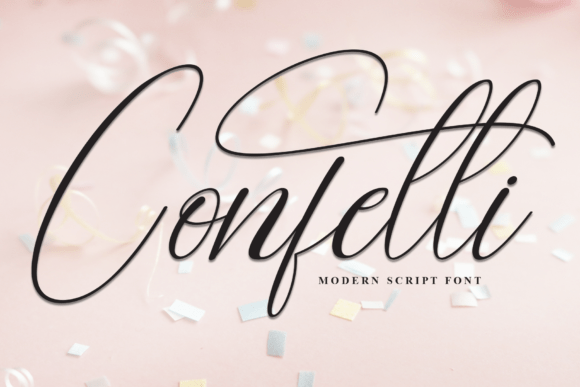
Introducing Confetti Font: Elevate Your Designs with Elegance and Modern Flair
In the world of typography, few fonts manage to strike a balance between elegance and modernity. However, Confetti Font achieves this delicate balance with grace. Confetti is a stylish handwritten script font that combines the sophistication of traditional calligraphy with the fresh appeal of contemporary design. Its flowing strokes and organic curves bring a sense of warmth and refinement to any project, making it an ideal choice for designers looking to add a personal touch to their work.
Key Features of Confetti Font
- Handwritten Script Style: Confetti Font boasts a beautiful, handwritten script style that adds a personal and refined touch to any design.
- Elegant and Modern: The font seamlessly blends traditional elegance with modern flair, making it versatile for various design applications.
- Flowing Strokes and Organic Curves: The fluidity of its strokes and the natural curves of the letters contribute to its warm and sophisticated feel.
- Versatile and Highly Readable: Despite its elegant nature, Confetti Font remains highly readable, making it suitable for both headlines and body text.
Ideal Applications for Confetti Font
Confetti Font’s unique characteristics make it an excellent choice for a variety of design projects. Here are some of the ideal applications:
- Branding: Use Confetti Font to create memorable logos, business cards, and brand guidelines that reflect a sophisticated yet approachable image.
- Invitations and Event Materials: The font’s elegant and modern appeal makes it perfect for wedding invitations, event posters, and other ceremonial materials.
- Social Media Graphics: Elevate your social media presence with stylish graphics, quotes, and promotional materials that stand out with Confetti Font.
- Packaging and Product Design: Add a touch of luxury and charm to product packaging, labels, and brochures.
Tips for Effective Use of Confetti Font
To maximize the impact of Confetti Font in your designs, consider the following tips:
- Pair with Complementary Fonts: Combine Confetti Font with clean, sans-serif fonts for contrast and visual interest.
- Adjust Letter Spacing: Optimize letter spacing to enhance readability, especially in longer texts.
- Utilize Font Weights: Experiment with different font weights to create hierarchy and emphasis in your design.
- Limit Use in Body Text: While Confetti Font is readable, it’s best used sparingly in body text. Consider using it for headings and highlights.
Drawing Inspiration and Creative Ideas
Confetti Font’s versatility opens up a world of creative possibilities. Here are some ideas to get you started:
- Wedding and Event Planning: Design beautiful wedding invitations, save-the-date cards, and event programs.
- Luxury Brand Campaigns: Create high-end branding materials, including logos, advertisements, and product packaging.
- Social Media Content: Craft engaging social media posts, quotes, and stories that capture attention and convey your message with style.
- Packaging Design: Develop eye-catching product packaging that stands out on store shelves and in online marketplaces.
In conclusion, Confetti Font is a stylish and versatile handwritten script font that brings a unique blend of elegance and modernity to any design project. Its flowing strokes, organic curves, and refined charm make it an excellent choice for designers looking to add a personal touch to their work. Whether you’re working on branding, invitations, social media graphics, or packaging, Confetti Font is sure to elevate your designs and leave a lasting impression.
Embrace the Elegance of Confetti Font
With Confetti Font, you have the opportunity to transform your designs and connect with your audience on a more personal level. Its beauty lies not just in its appearance but in the emotions and reactions it evokes. So, embrace the elegance and modern flair of Confetti Font, and watch your designs come to life with sophistication and charm.